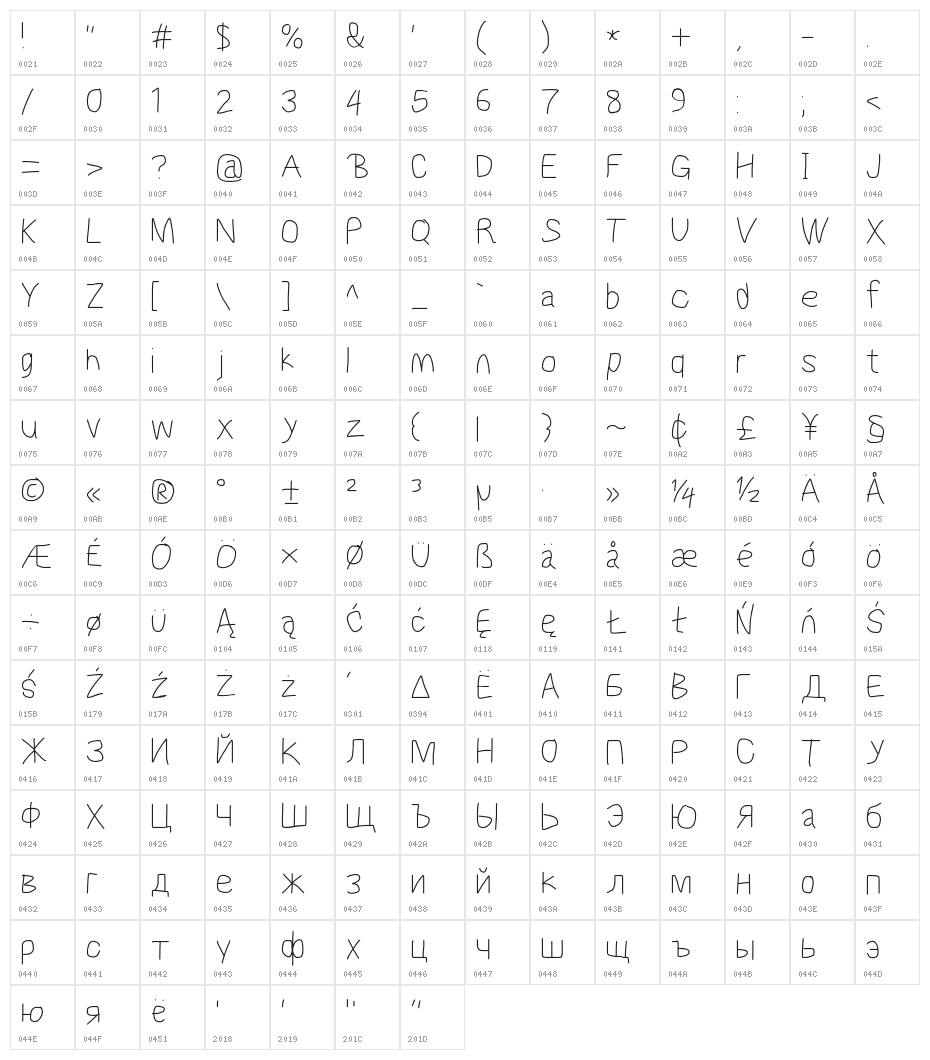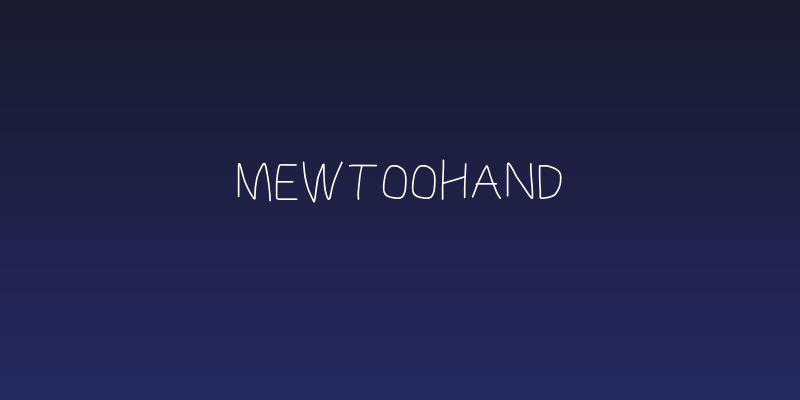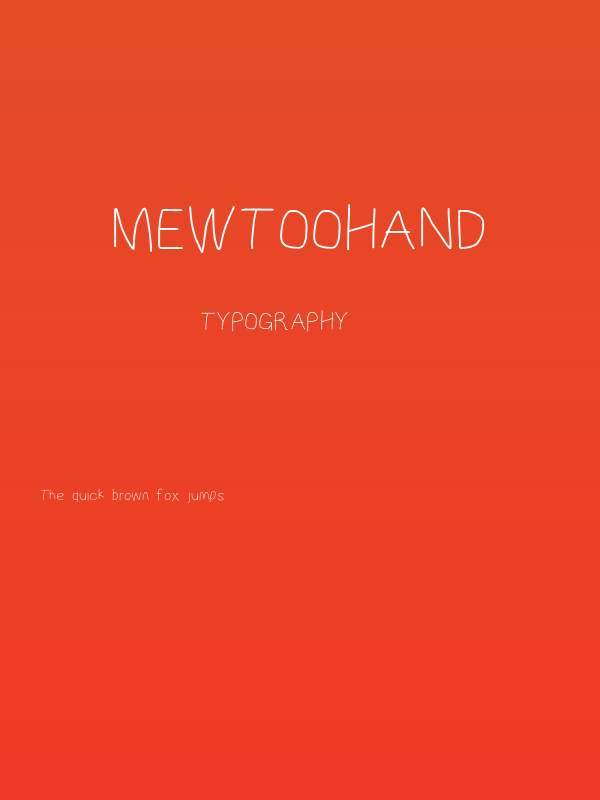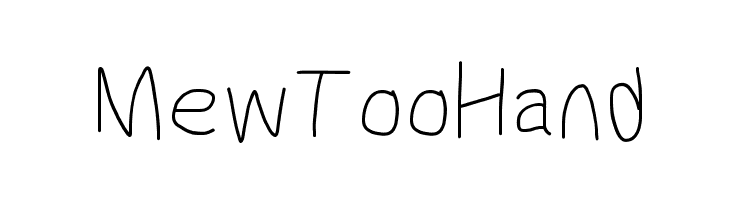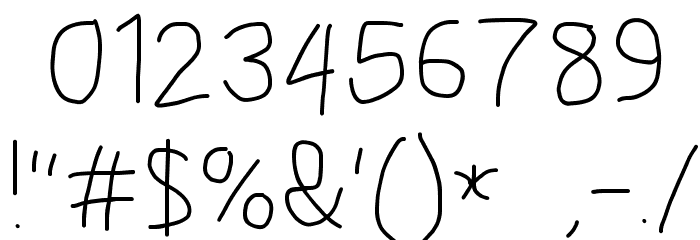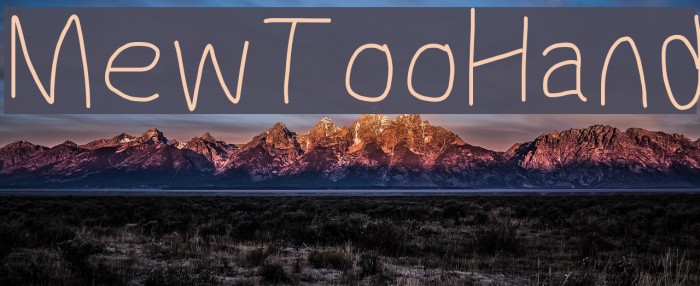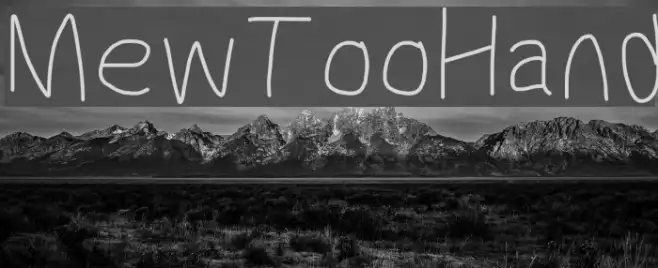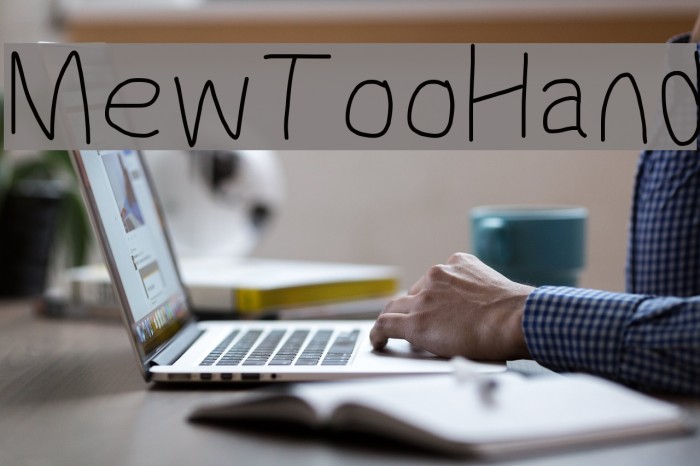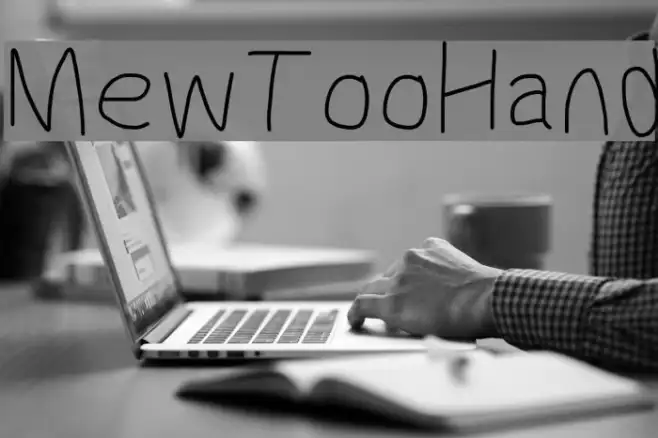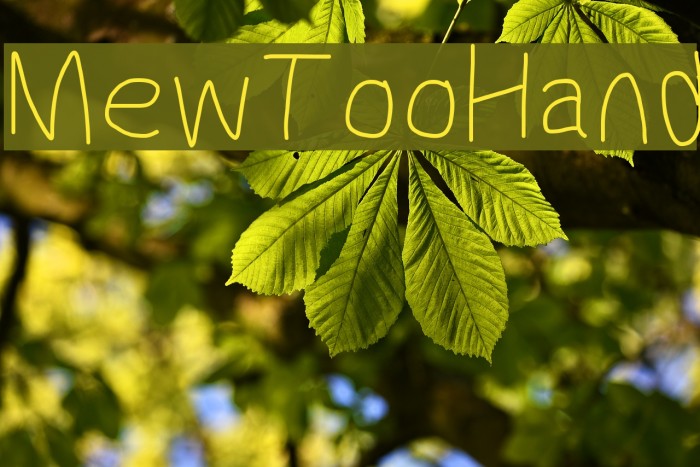
MewTooHand Font
MewTooHand Description
This font features a playful and casual handwritten style, characterized by its irregular and organic letterforms. The uppercase and lowercase letters maintain a consistent flow, with rounded edges and a slightly uneven baseline that adds to its charm. The numerals and special characters follow the same informal aesthetic, making it suitable for projects that require a personal touch. The strokes are consistent in width, providing a uniform appearance across all characters. This font is ideal for conveying a friendly and approachable tone.
MEWTOOHAND UPPERCASE
MEWTOOHAND LOWERCASE
MEWTOOHAND OTHER CHARS
| Use Case | Headlines, Informal text, Personal projects |
| Proposed Projects | Ideal for greeting cards, children's books, personal blogs, and informal branding. |